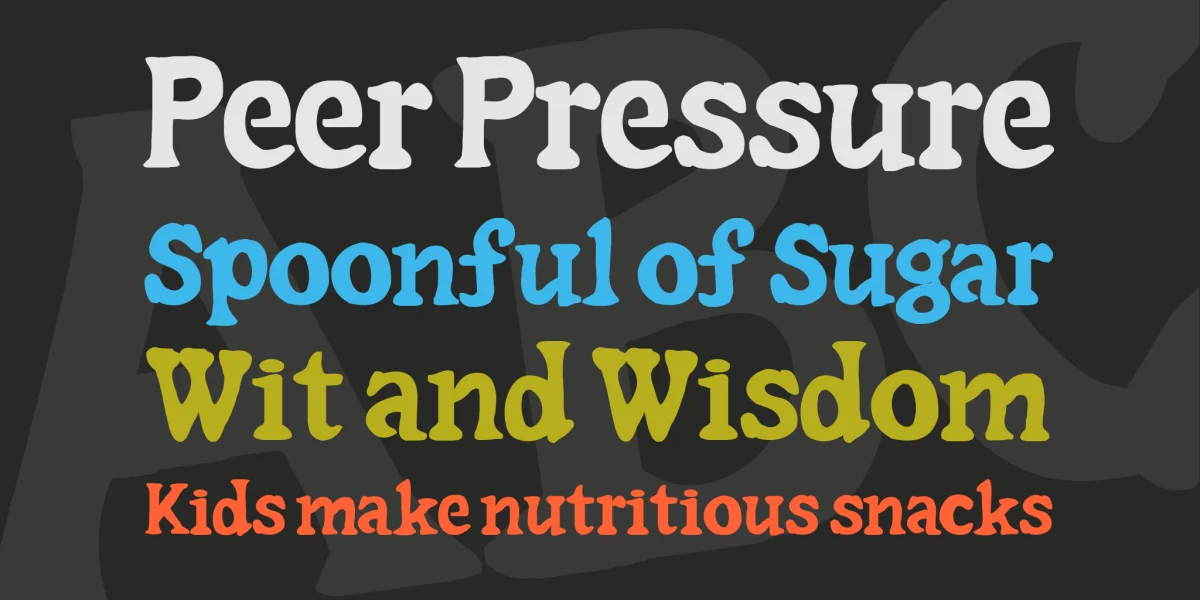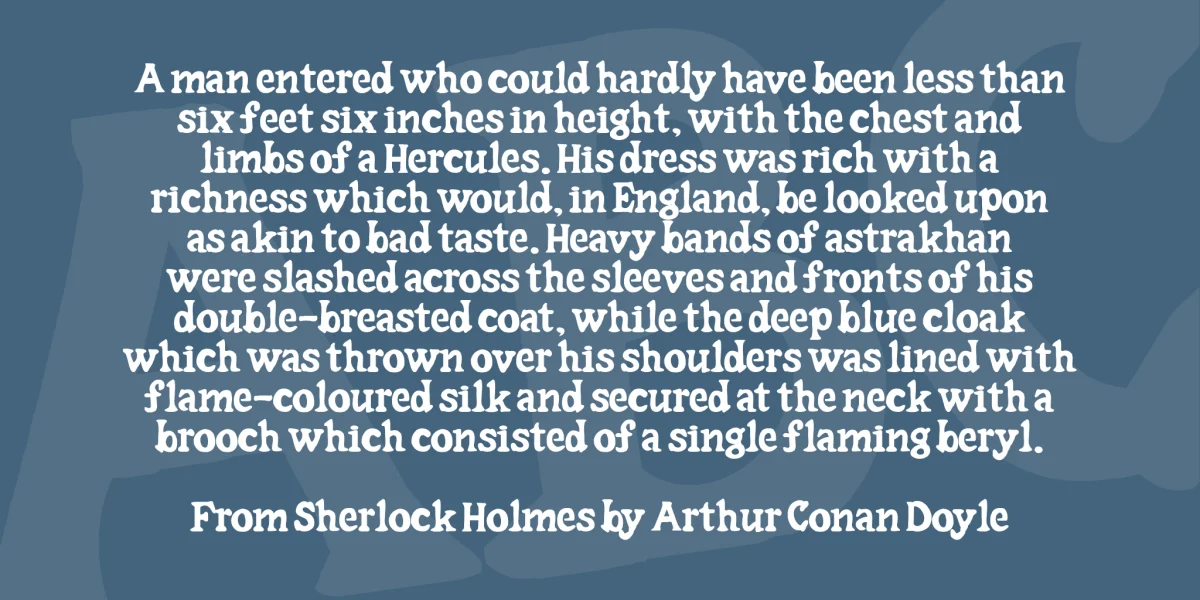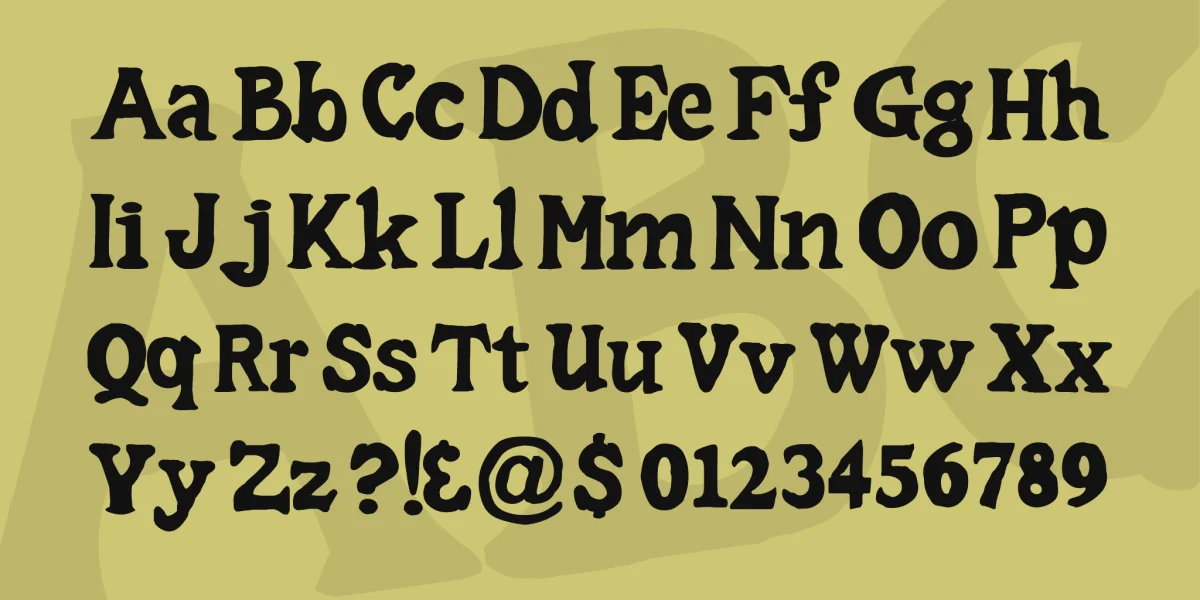
Hi there font fans. Hope you're hungry for a hot slice. In this 2.0 update kerning has been added and several characters were redrawn to better resemble it's inspiration. This set contains letters, numbers, and a good deal of punctuation. The glyphs are tightly tracked on purpose. This font is free for personal use only. Feel free to redistribute this as long as the readme file stays intact. For trouble with the font itself there are many resources on the web for install problems. If you're interested in licensing it commercially email me at . I also design custom fonts and logos too. Visit http://www.sharkshock.net for more and take a bite out of boring design!